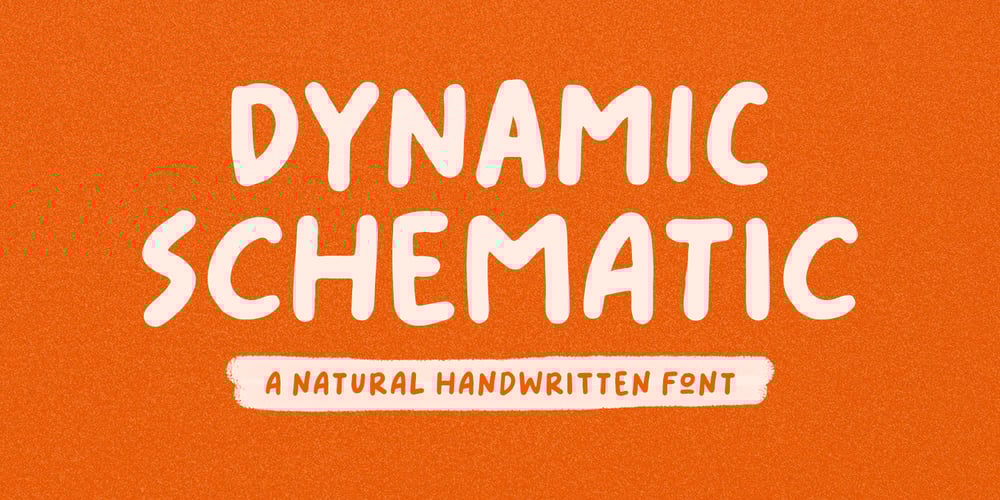
Dynamic Schematic Font Family was designed by Bagas Ardiatma and published by Trustha. Dynamic Schematic contains 1 styles and family package options. Dynamic Schematic is a natural handwritten font, written with fun and relaxed. It comes with 400+ glyphs, which also include multilingual languages.Dynamic Schematic is perfect for headlines, branding, quotes, and many more.